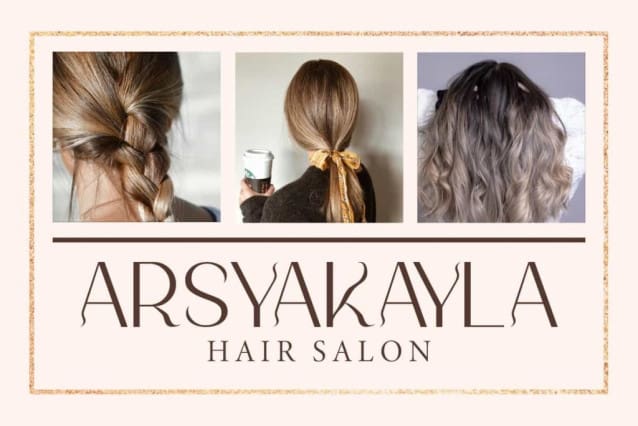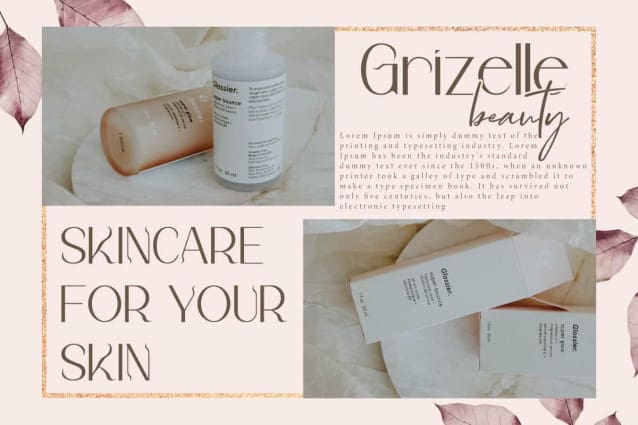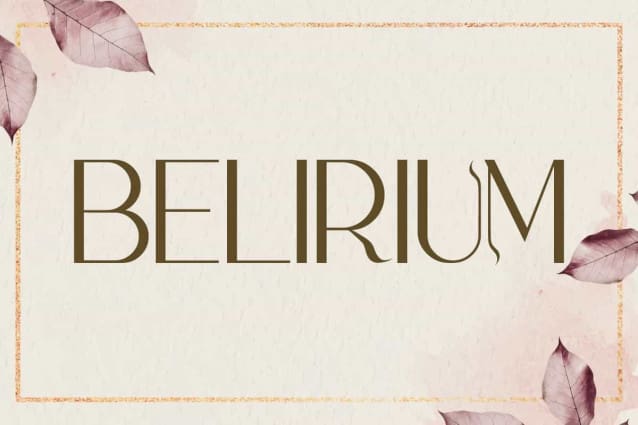
Belirium Font
Belirium Font is a stunningly elegant serif display font with eye-catchy letter shape. This font has a luxurious and minimalist styles to perfect your design and look even more stunning. It will suits many designs, such as brand image, custom design, gift box, invitation, label, magazine, poster, product packaging, quote, signage, stationery, website page, and more!
Belirium Font includes full set of Uppercase and Lowercase Basic Characters, Numerals, Punctuation and Symbol. This font can make your design looks clean and will be suitable for many industries, such as advertising, beauty product, event or wedding organizer, fashion, furniture, jewelry and accessories, photography, resort, restaurant, etc.